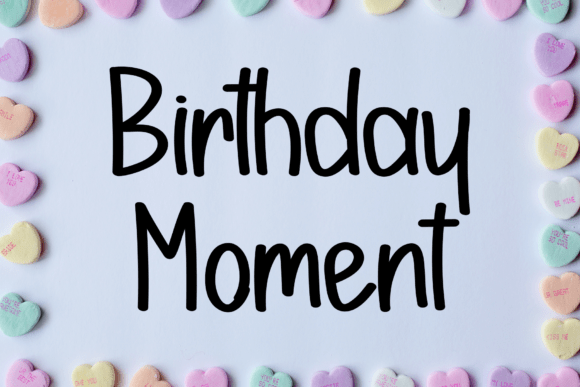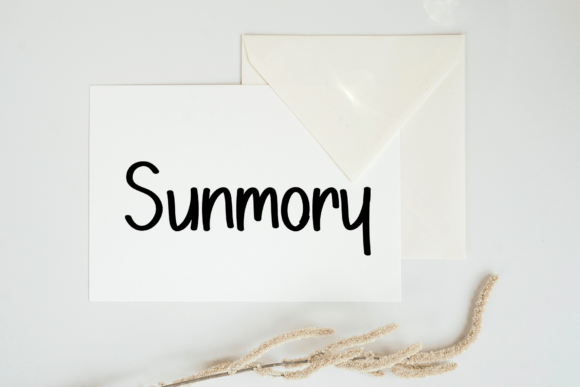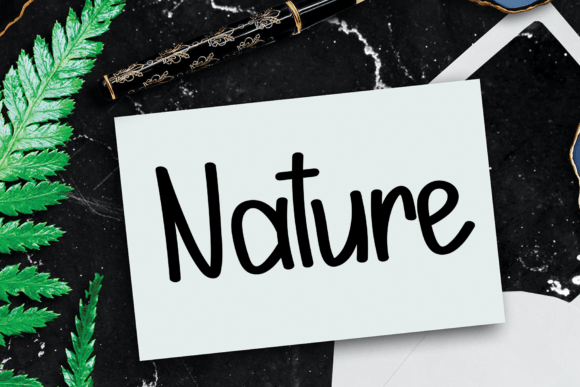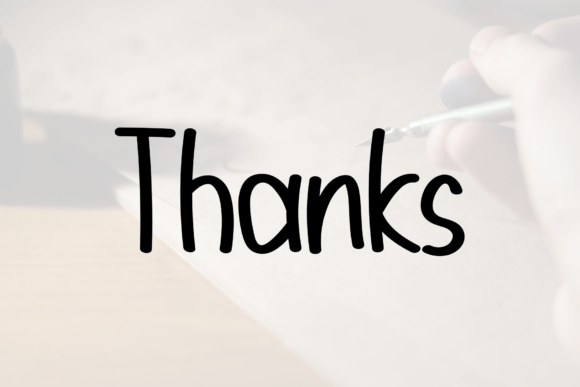
Introducing Friendly Font: The Perfect Blend of Casual and Elegance
Are you tired of using fonts that are too formal or too bland? Look no further than Friendly Font, a handwritten font that exudes a relaxed and sporty vibe. With its marker-drawn aesthetic, Friendly Font is perfect for designers and crafters who want to add a touch of personality to their work.
What is Friendly Font?
Friendly Font is a unique and versatile font that looks like it was drawn with a marker. Its casual and laid-back feel makes it ideal for a wide range of design projects, from branding and logos to wedding supplies and greeting cards. Whether you’re looking to create a luxurious and elegant design or a fun and playful one, Friendly Font is the perfect choice.
Characteristics of Friendly Font
Friendly Font has several characteristics that make it stand out from other fonts. Here are a few:
• Handwritten aesthetic: Friendly Font has a warm and personal feel, thanks to its handwritten aesthetic.
• Marker-drawn look: The font’s marker-drawn look gives it a relaxed and sporty vibe.
• Versatile: Friendly Font is suitable for a wide range of design projects, from formal to informal.
• Elegant yet casual: The font strikes the perfect balance between elegance and casualness, making it perfect for designers who want to create luxurious yet approachable designs.
Use Cases for Friendly Font
Friendly Font is perfect for a variety of design projects, including:
• Branding and logos: Friendly Font is ideal for creating unique and memorable brand identities.
• Wedding supplies: The font’s elegant yet casual feel makes it perfect for wedding invitations, programs, and other stationery.
• Greeting cards: Friendly Font is a great choice for creating greeting cards that are both personal and stylish.
• Fashion and lookbooks: The font’s sporty and relaxed vibe makes it perfect for fashion brands and lookbooks.
• Marketing promotions: Friendly Font is a great choice for creating promotional materials that are both eye-catching and approachable.
Benefits of Using Friendly Font
There are several benefits to using Friendly Font in your designs:
• Unique aesthetic: Friendly Font has a unique and distinctive aesthetic that will set your designs apart from others.
• Flexibility: The font is versatile and can be used for a wide range of design projects.
• Elegance and casualness: Friendly Font strikes the perfect balance between elegance and casualness, making it perfect for designers who want to create luxurious yet approachable designs.
• Easy to read: The font is easy to read, making it perfect for body text and other long-form content.
Tips for Using Friendly Font
Here are a few tips for using Friendly Font in your designs:
• Pair with other fonts: Friendly Font pairs well with other fonts, so don’t be afraid to experiment with different combinations.
• Use for headlines and body text: The font is suitable for both headlines and body text, making it a great choice for long-form content.
• Experiment with colors: Friendly Font looks great in a variety of colors, so don’t be afraid to experiment with different color schemes.
Friendly Font is a unique and versatile font that is perfect for designers and crafters who want to add a touch of personality to their work. With its marker-drawn aesthetic and relaxed and sporty vibe, Friendly Font is suitable for a wide range of design projects, from branding and logos to wedding supplies and greeting cards. Whether you’re looking to create a luxurious and elegant design or a fun and playful one, Friendly Font is the perfect choice.